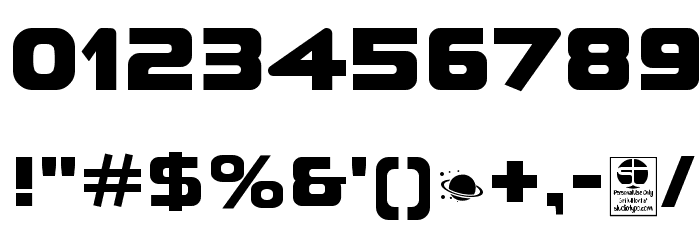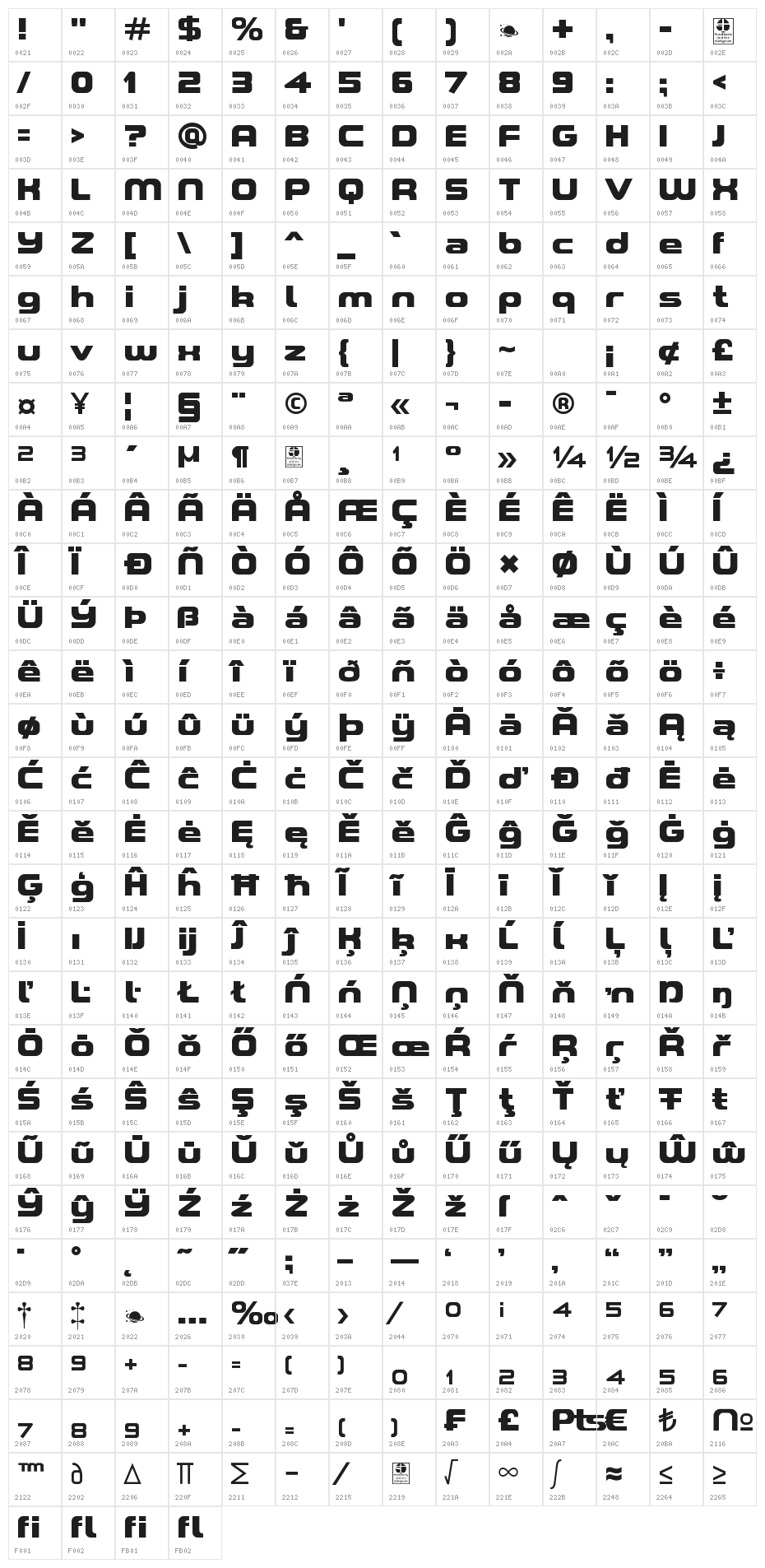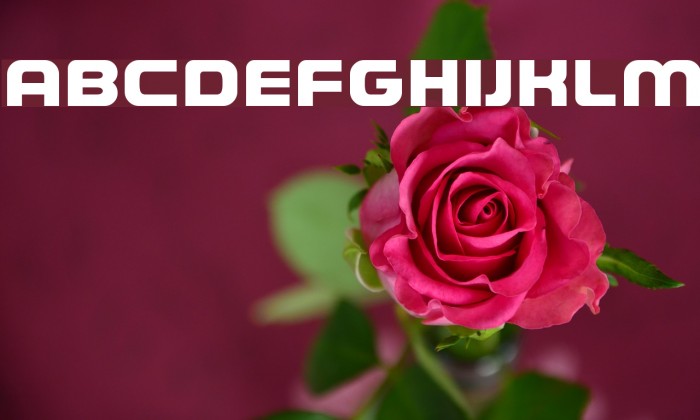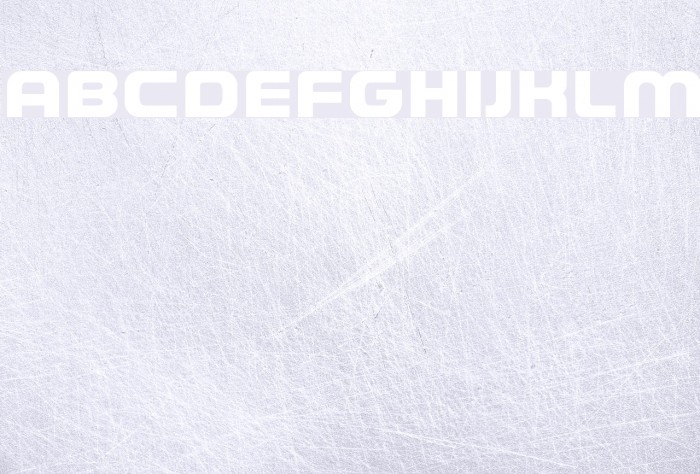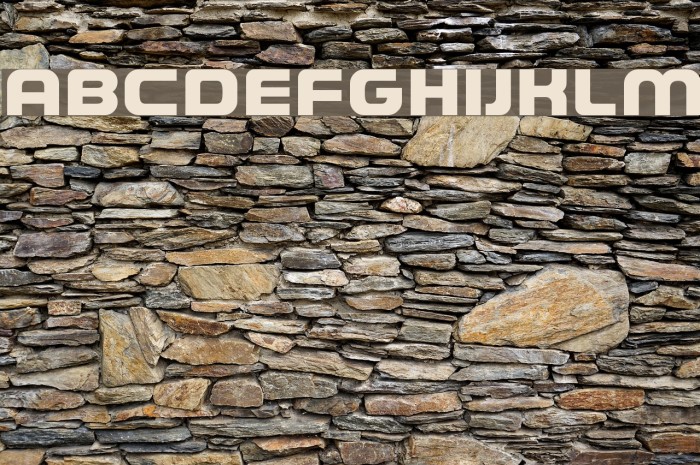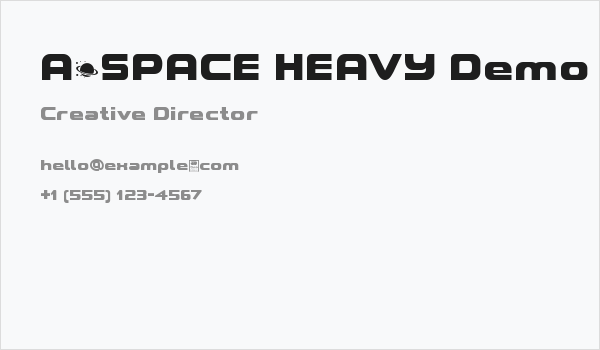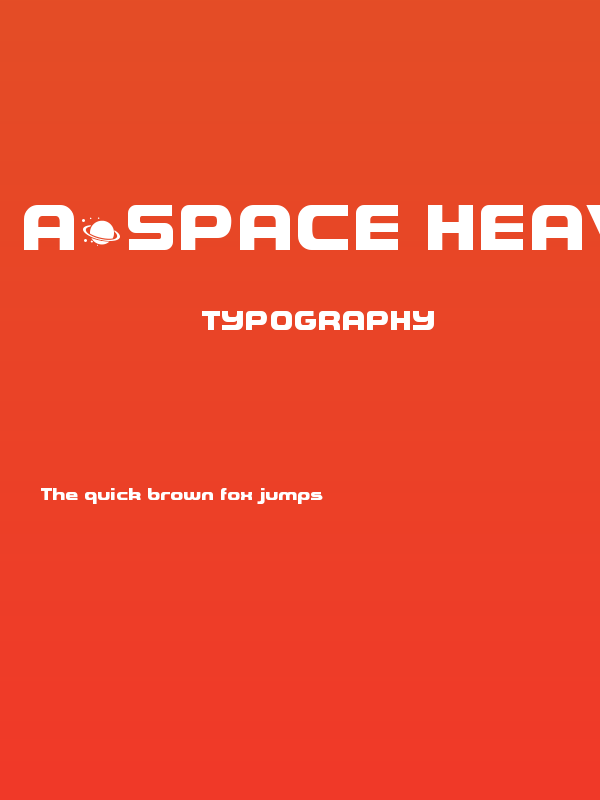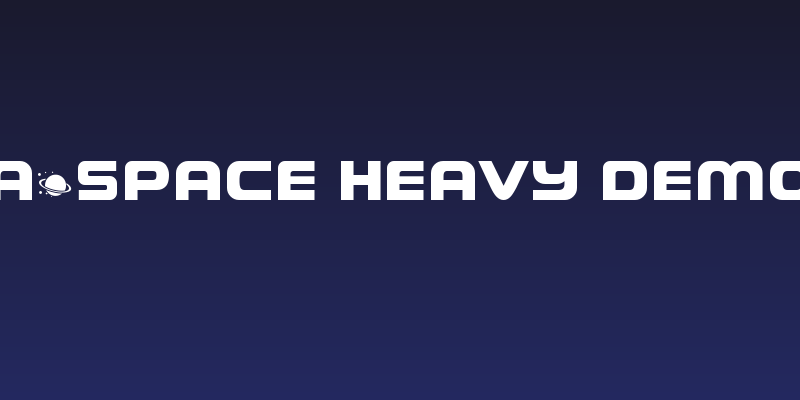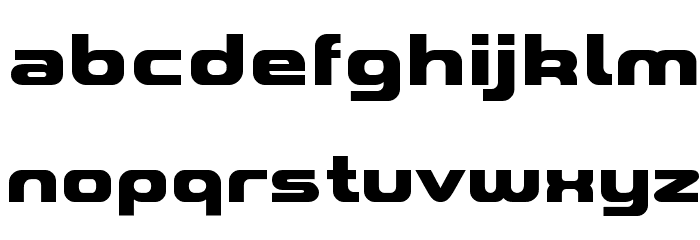
A*SPACE HEAVY Demo Font
A*SPACE HEAVY Demo Description
This font features a bold and futuristic design, characterized by its thick, rounded letterforms and geometric shapes. The uppercase and lowercase letters maintain a consistent weight, contributing to a cohesive and modern appearance. The numerals are similarly styled, ensuring uniformity across all characters. Special characters are designed with the same boldness, enhancing the font's overall impact. The font's strong presence makes it ideal for attention-grabbing applications.